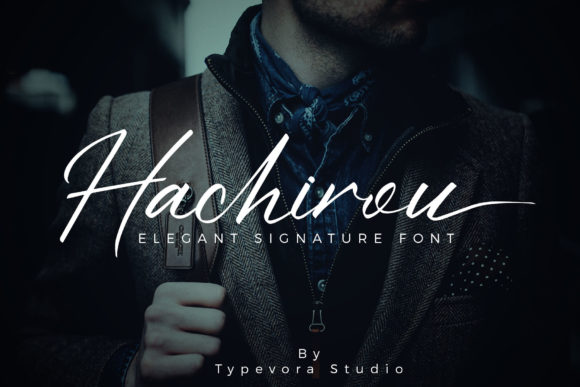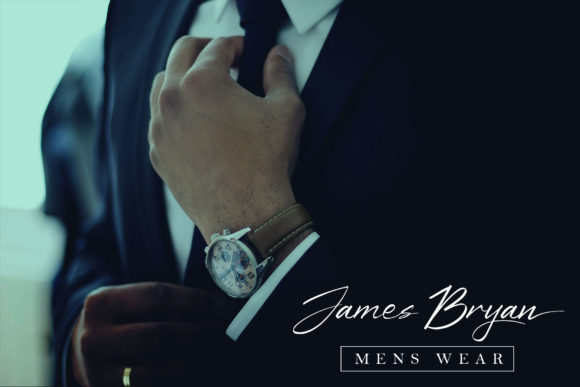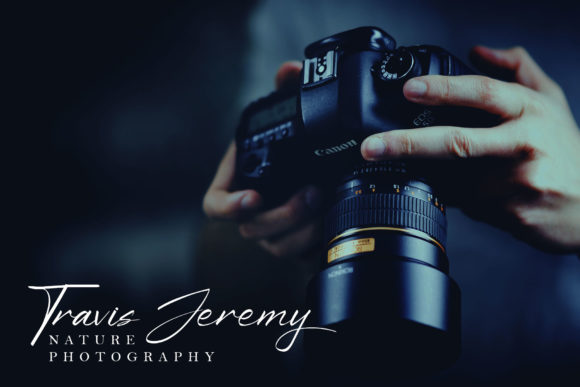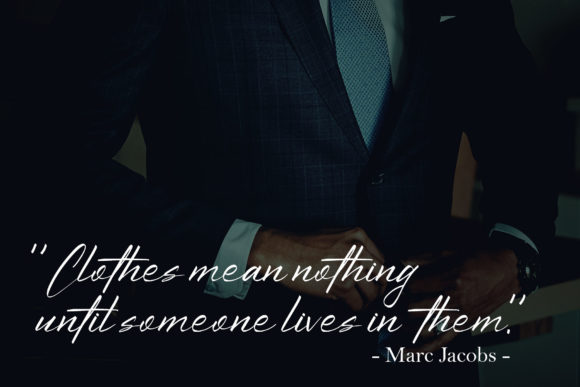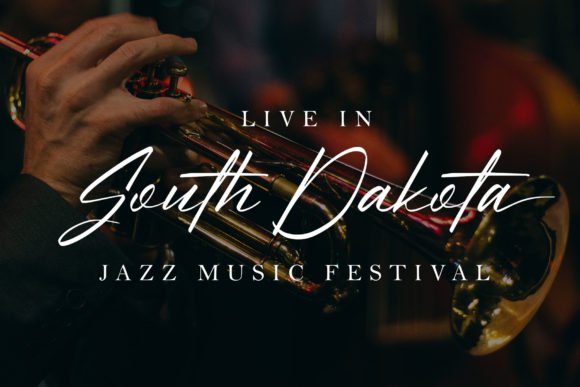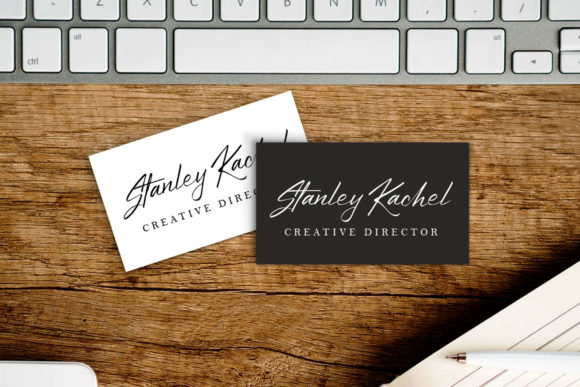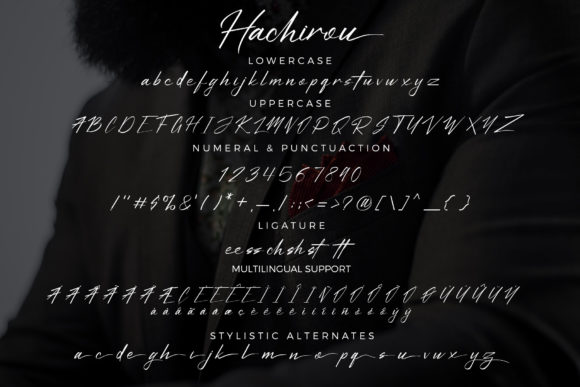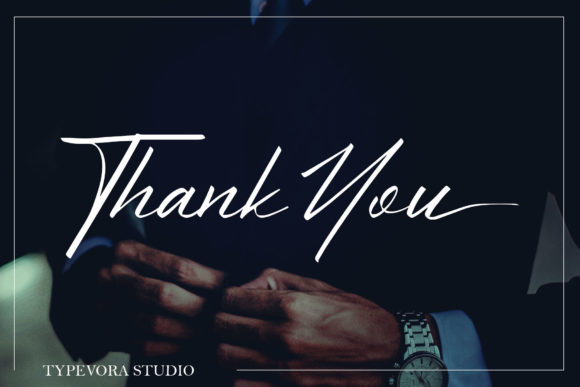
HomeScript FontsHachirou Font Script Fonts Hachirou Font FacebookXPinterestWhatsApp Hachirou Font Poster 2 Hachirou Font Poster 3 Hachirou Font Poster 4 Hachirou Font Poster 5 Hachirou Font Poster 6 Hachirou Font Poster 7 Hachirou Font Poster 8 About Hachirou Font Hachirou is a stunningly bold and sophisticated script. Get inspired by its modest elegance. DOWNLOAD NOW People also explored Purple Triblend Bella Canvas 8413 Mockup Rain and Beach Font Caitlin Script Font Black Seashore Font Jillsville Afronghey – Handwritten Font Stranglethorn Font Sipur Knight Font Malibu Holiday Font 382 0 TagsHachirou Font Previous articleBrunela FontNext articleSkilled Font LEAVE A REPLY Cancel reply Comment: Please enter your comment! Name:* Please enter your name here Email:* You have entered an incorrect email address! Please enter your email address here Website: Save my name, email, and website in this browser for the next time I comment. Personal Use Free Latifah Personal Use Free Read more about this font Uchiyama Personal Use Free Read more about this font Camping Personal Use Free Read more about this font Wondery Personal Use Free Read more about this font BLOG Free Fonts Risk: Why Free Fonts Can Be Dangerous for Designers Free Fonts Risk: Why Free Fonts Can Be Dangerous for Designers Using free fonts is a common practice in web and graphic design. However, the... Top 10 Handwritten Fonts That Elevate Your Designs Free vs Paid Fonts: Why Investing in Premium Fonts Is Worth It Best Fonts for YouTube Videos: Make Your Thumbnails Stand Out